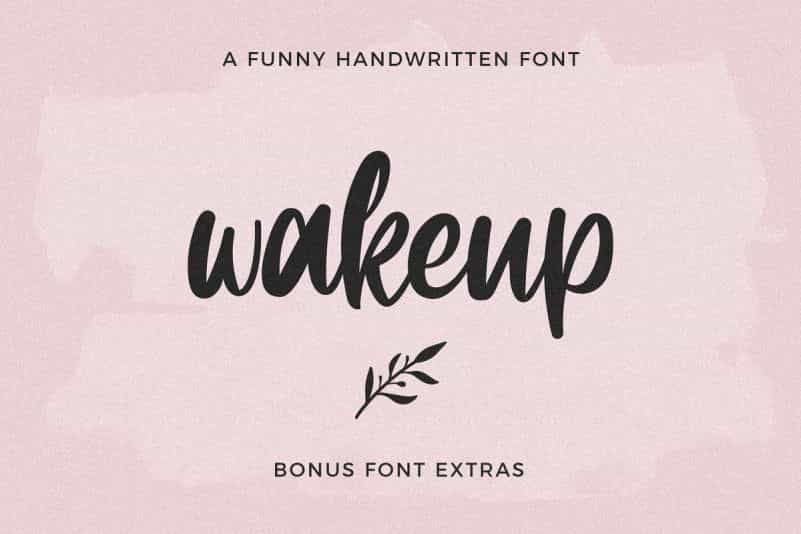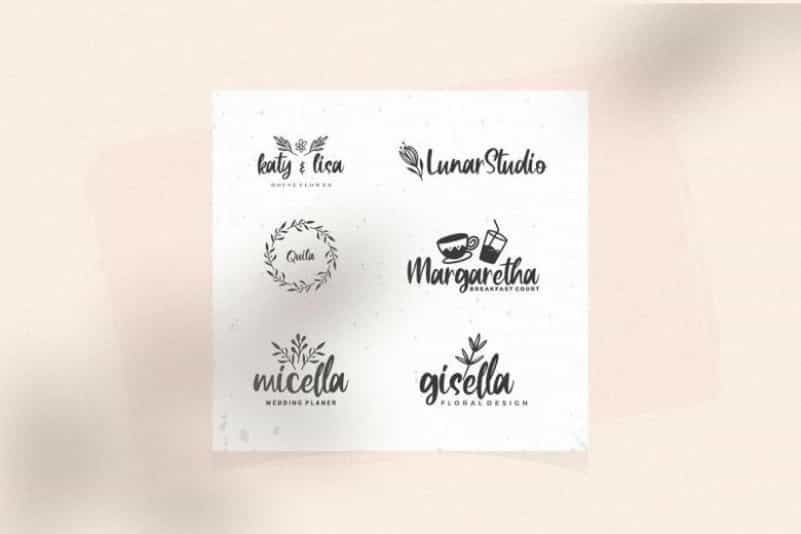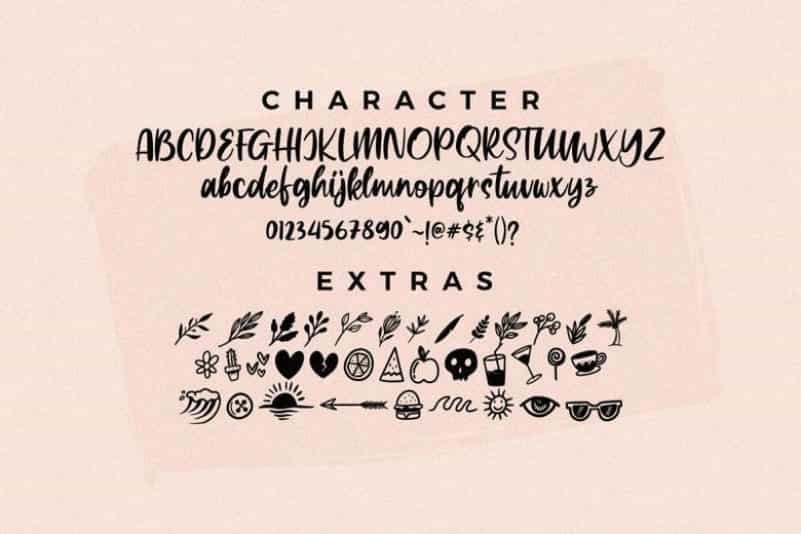
Discover Wakeup Script Font, part of the Brush Handwritten collection—a versatile and unique font perfect for adding a personal touch to your projects. Download it for free and enjoy crafting designs with style, from invitations to social media posts. This font is available exclusively for personal use, giving you the freedom to create without limits. Unlock your creativity with Wakeup Script Font today!
Check out Wakeup Font – a script font inspired by hand lettering that adds flair to your designs. Created by 24Design Studios, Wakeups thick script style exudes charm and creativity for projects catering to women like weddings, invitations, labels and more.